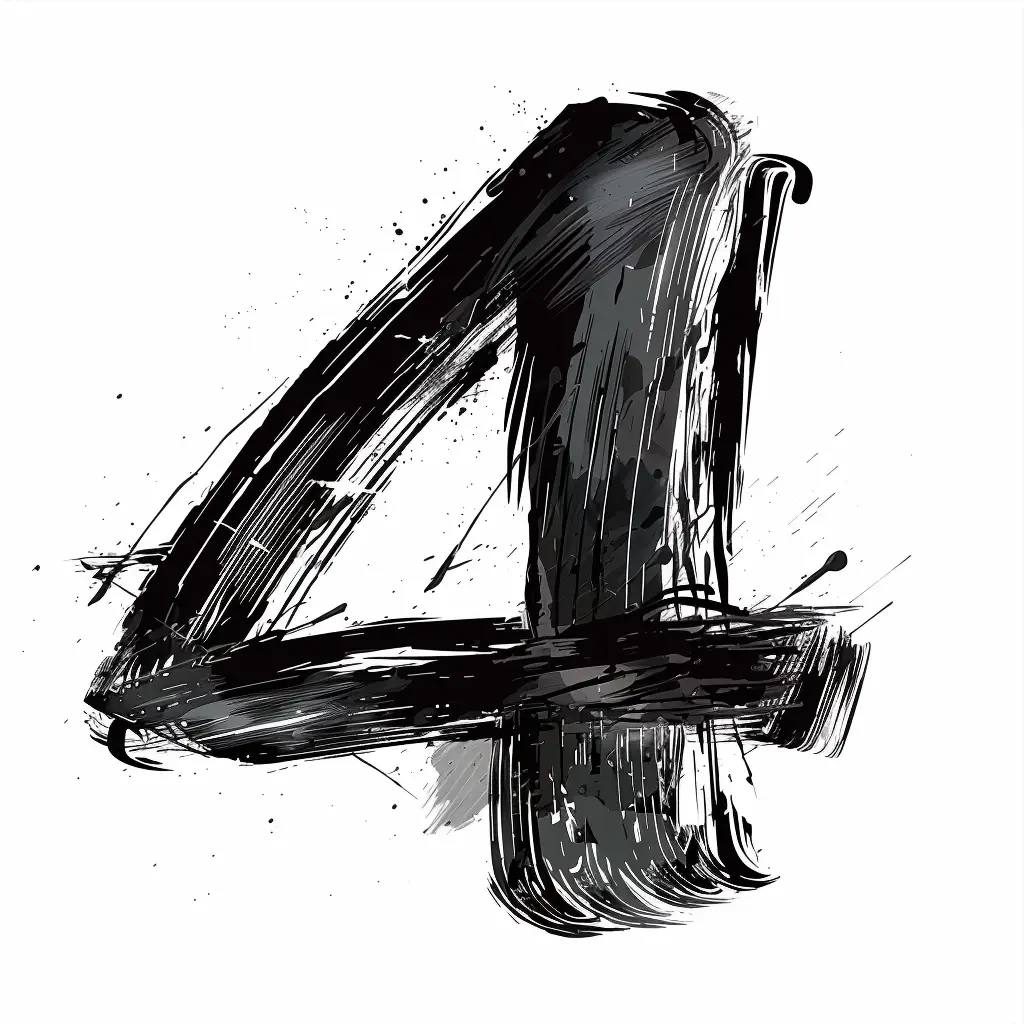
The image features a stylized, hand-drawn representation of the number "4" rendered in bold black brushstrokes with a textured, grungy aesthetic. The design incorporates dynamic splatters, streaks, and varying line weights, creating a sense of movement and artistic energy against a clean white background. The monochromatic color scheme emphasizes the contrast between the dark, expressive strokes and the light backdrop, highlighting the number’s bold, artistic form.